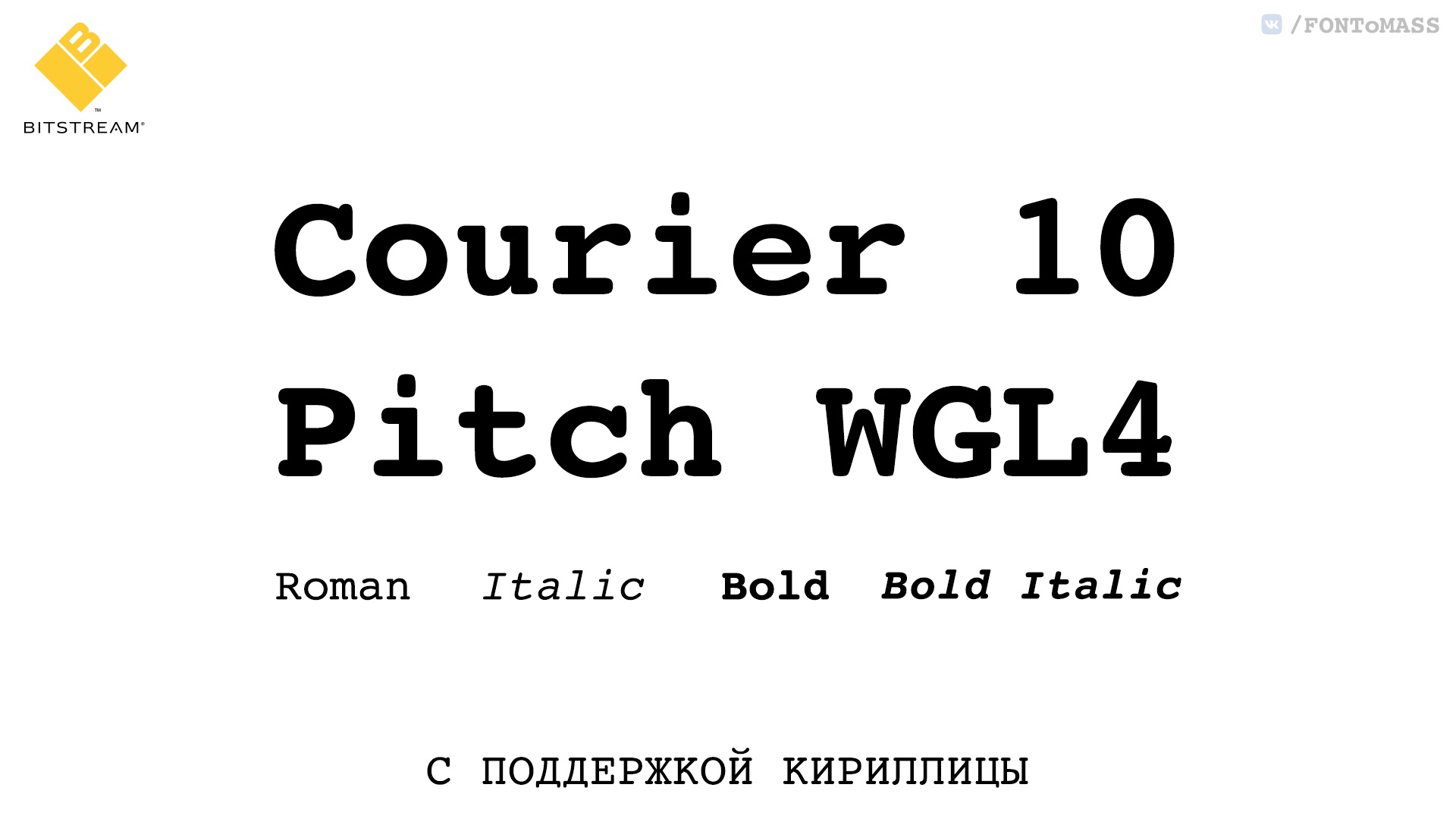
Courier 10 Pitch Font
Courier 10 Pitch Font is ideal for typewriter-style documents, vintage correspondence designs, retro office materials, classic manuscript layouts, nostalgic business communications, traditional coding applications, old-school terminal interfaces, authentic period reproductions, vintage journalism projects, and classic monospace text requirements.
What makes Courier 10 Pitch Font so exciting is its authentic preservation of typewriter heritage and mechanical precision that captures the nostalgic charm of traditional office communication through meticulously engineered monospace typography. This classically crafted typeface features uniform character spacing with typewriter-inspired proportions and mechanically precise letterforms that immediately convey authenticity, reliability, and the timeless appeal of traditional business communication methods. The font's mechanical construction and vintage aesthetic create an instant sense of nostalgic professionalism and historical authenticity, making it ideal for projects that need to communicate traditional values, mechanical precision, and the enduring power of classic office culture to audiences seeking authentic vintage experiences and meaningful connections to traditional business heritage.
The Courier 10 Pitch Font family typically includes multiple typewriter weights and classic styles, often featuring regular, bold, and italic variations along with authentic character spacing optimization. Traditional monospace font families frequently offer extensive character sets including typewriter symbols, mechanical notation, and vintage punctuation that ensure optimal functionality across diverse period-appropriate communication requirements and authentic historical applications.
The typewriter nature of Courier 10 Pitch Font makes it particularly effective for targeting demographics that value traditional business methods and vintage office aesthetics in their professional and personal communications. Heritage marketers and vintage design specialists will find this font especially valuable for materials that must establish immediate period authenticity and connect with audiences seeking genuine vintage experiences and meaningful connections to traditional office culture.
What distinguishes Courier 10 Pitch Font is its ability to provide authentic typewriter functionality while maintaining the reliability necessary for modern communication applications. This balanced characteristic makes it suitable for both historical recreation projects and contemporary applications where projecting vintage authority and maintaining practical functionality must work together seamlessly.
Professional designers recognize that Courier 10 Pitch Font brings invaluable vintage credibility to projects across industries including historical preservation, traditional businesses, vintage entertainment, and period-authentic communications. Its typewriter character and mechanical appeal make it essential for organizations whose mission centers on preserving traditional business culture, celebrating vintage office heritage, and creating meaningful connections between historical communication methods and contemporary design appreciation.
The systematically preserved authenticity of Courier 10 Pitch Font ensures consistent vintage messaging across all typewriter-focused communication applications while honoring the fundamental principles of mechanical precision and traditional office professionalism.